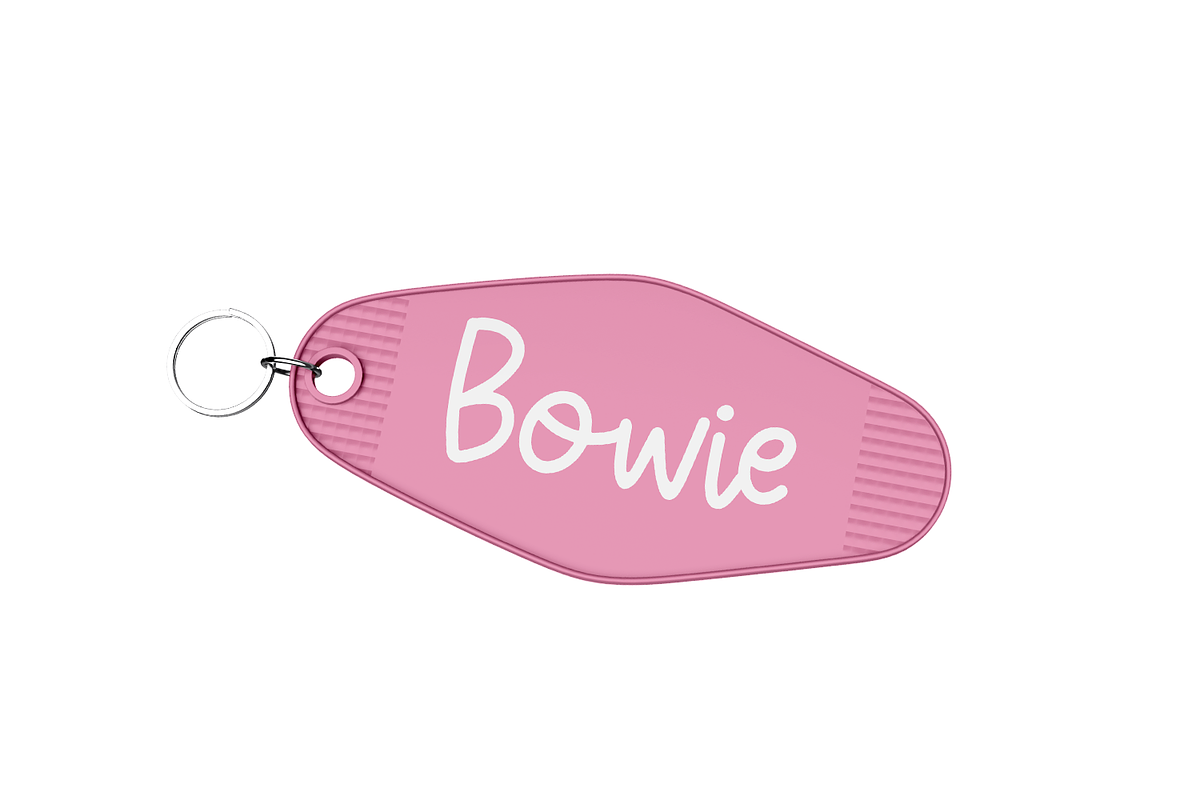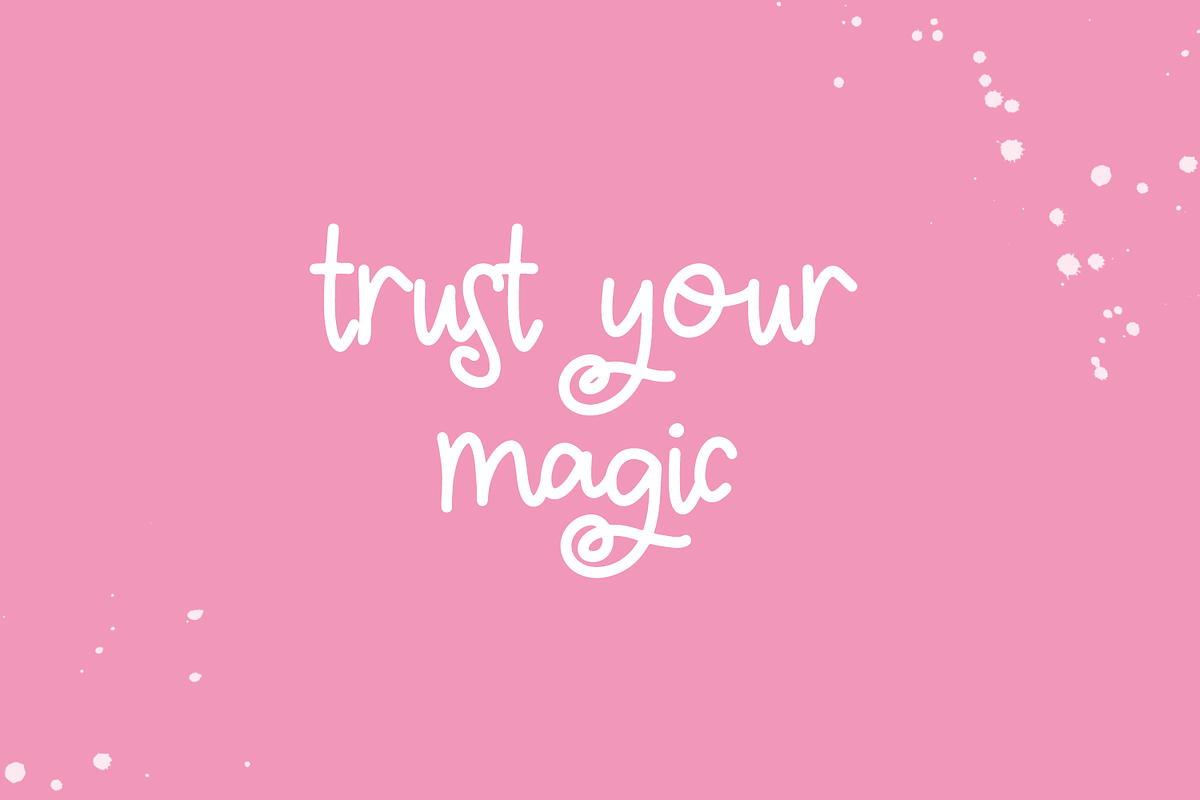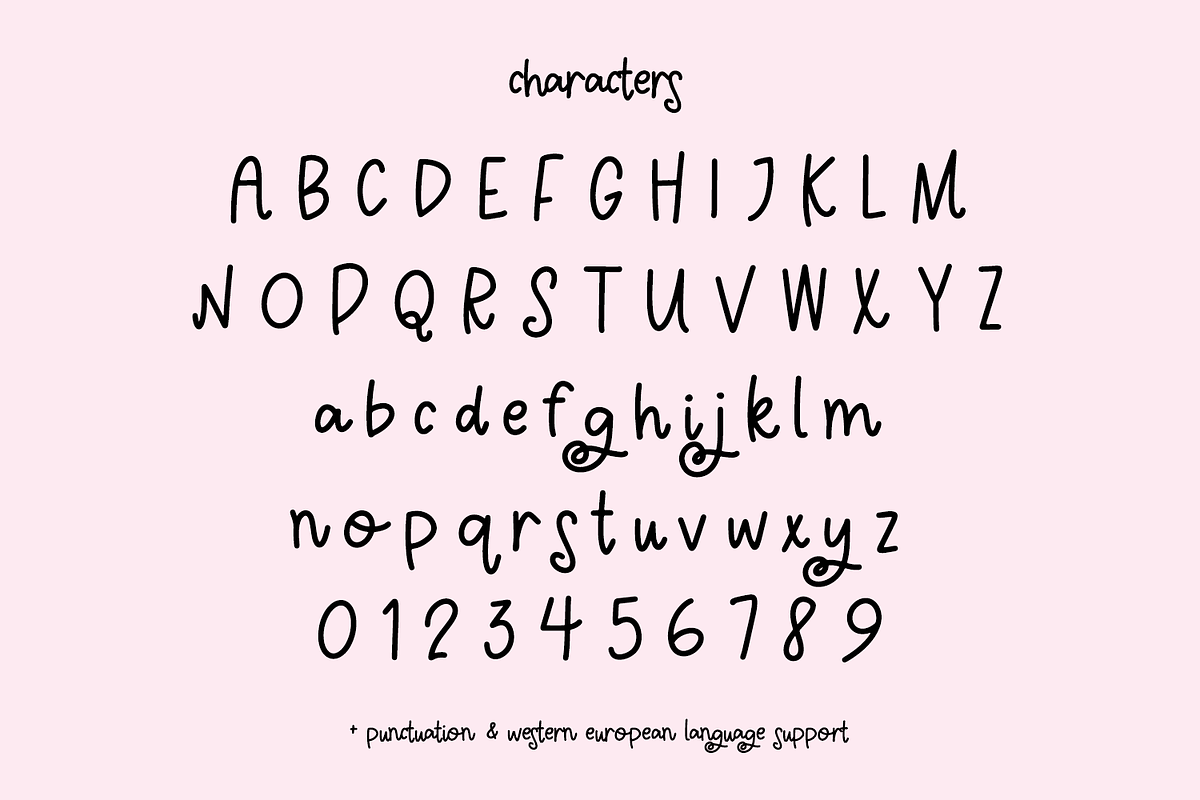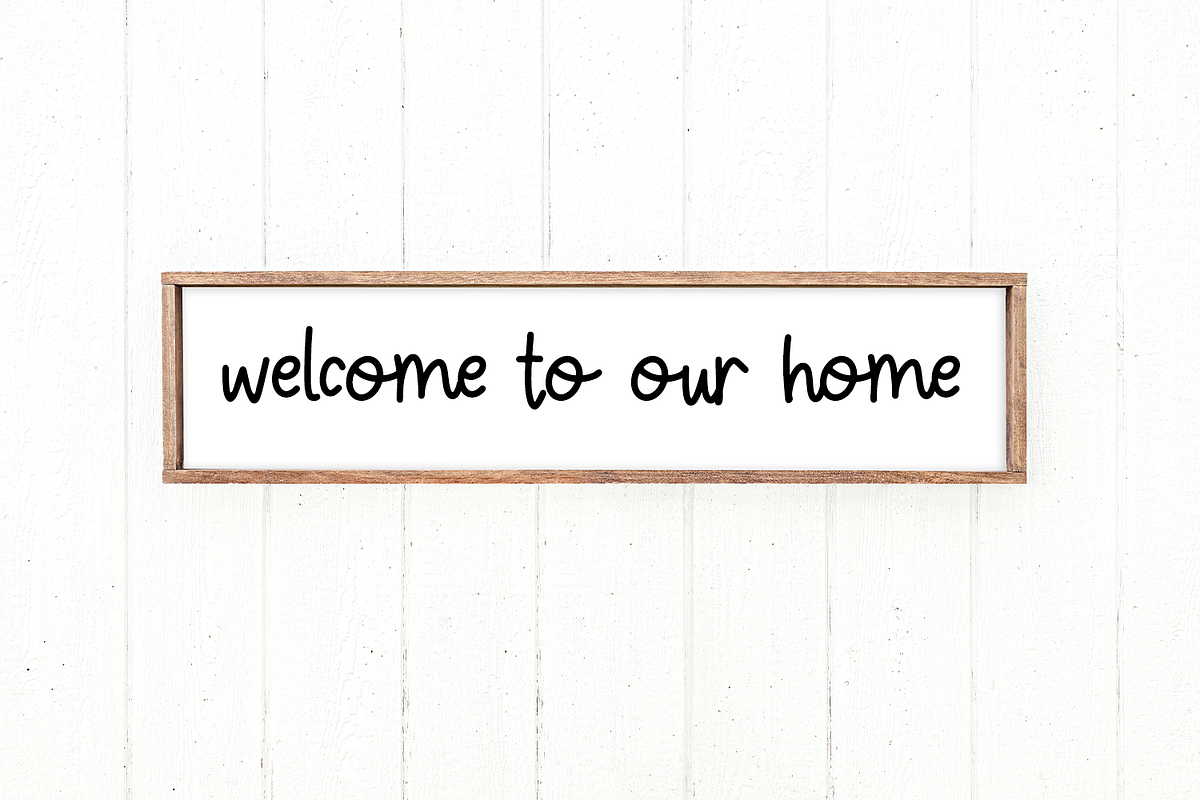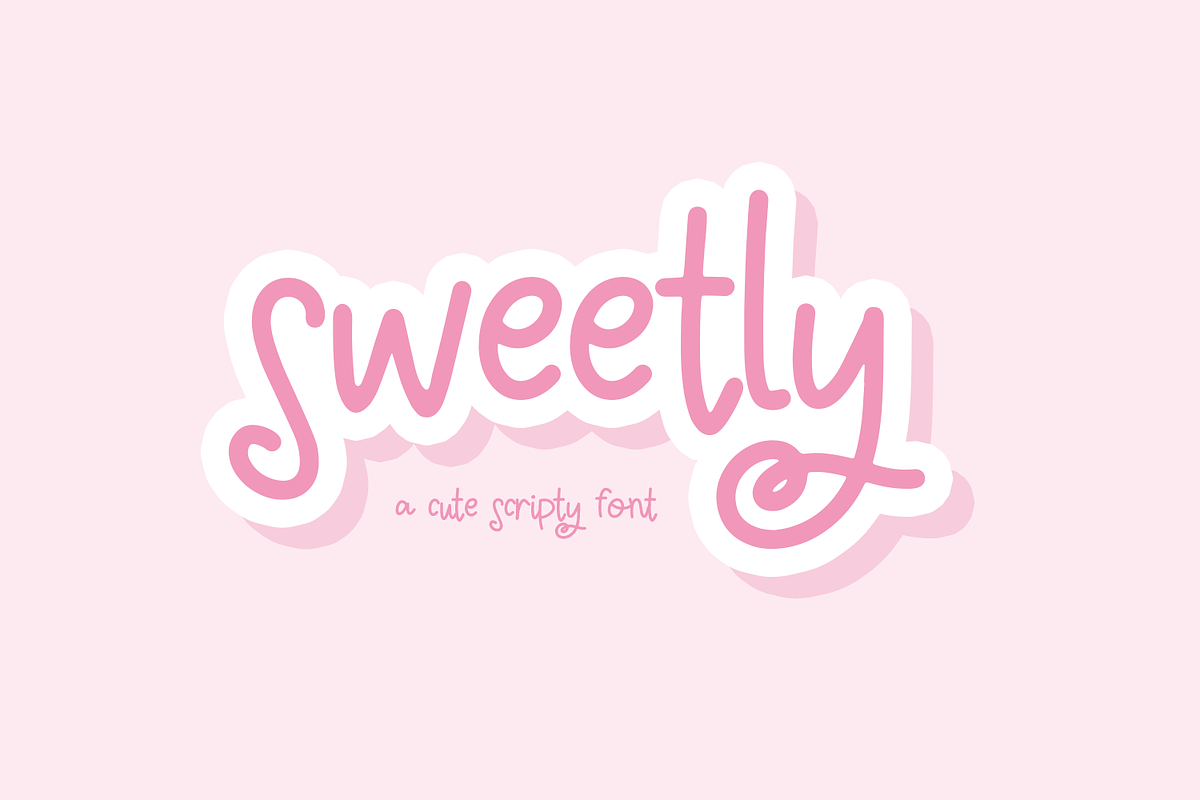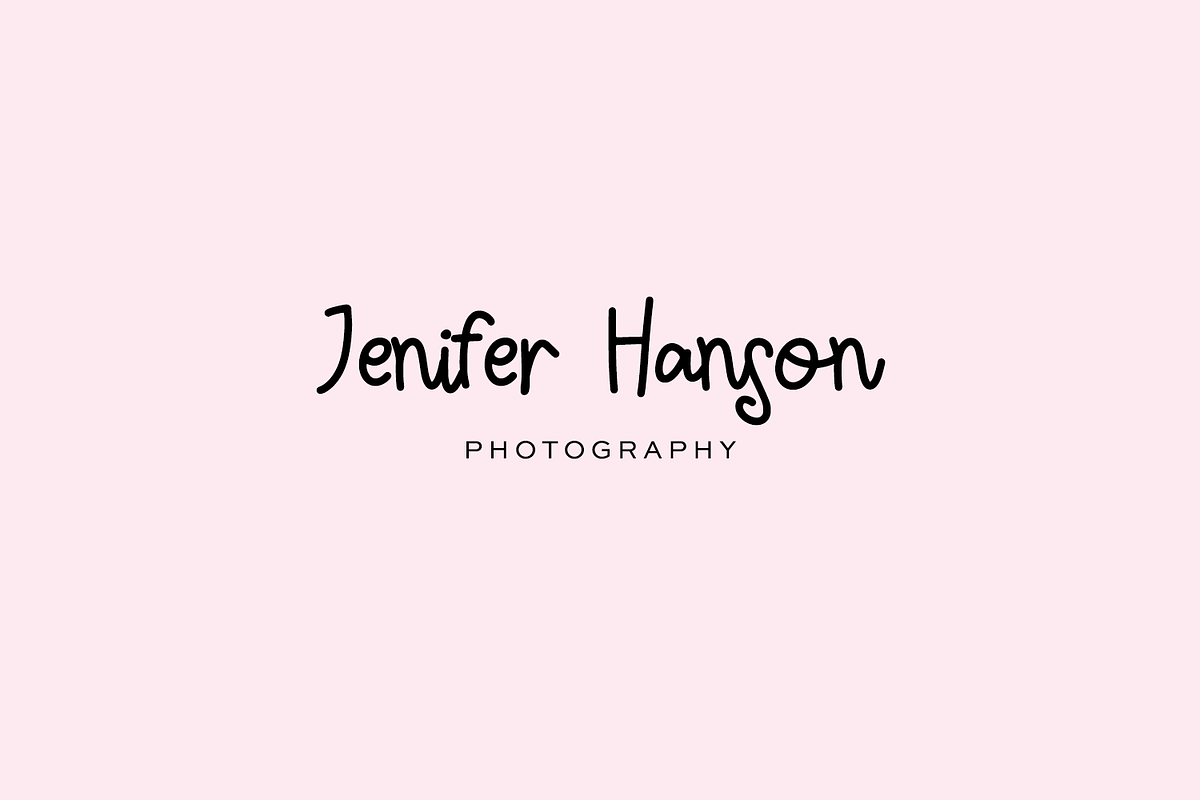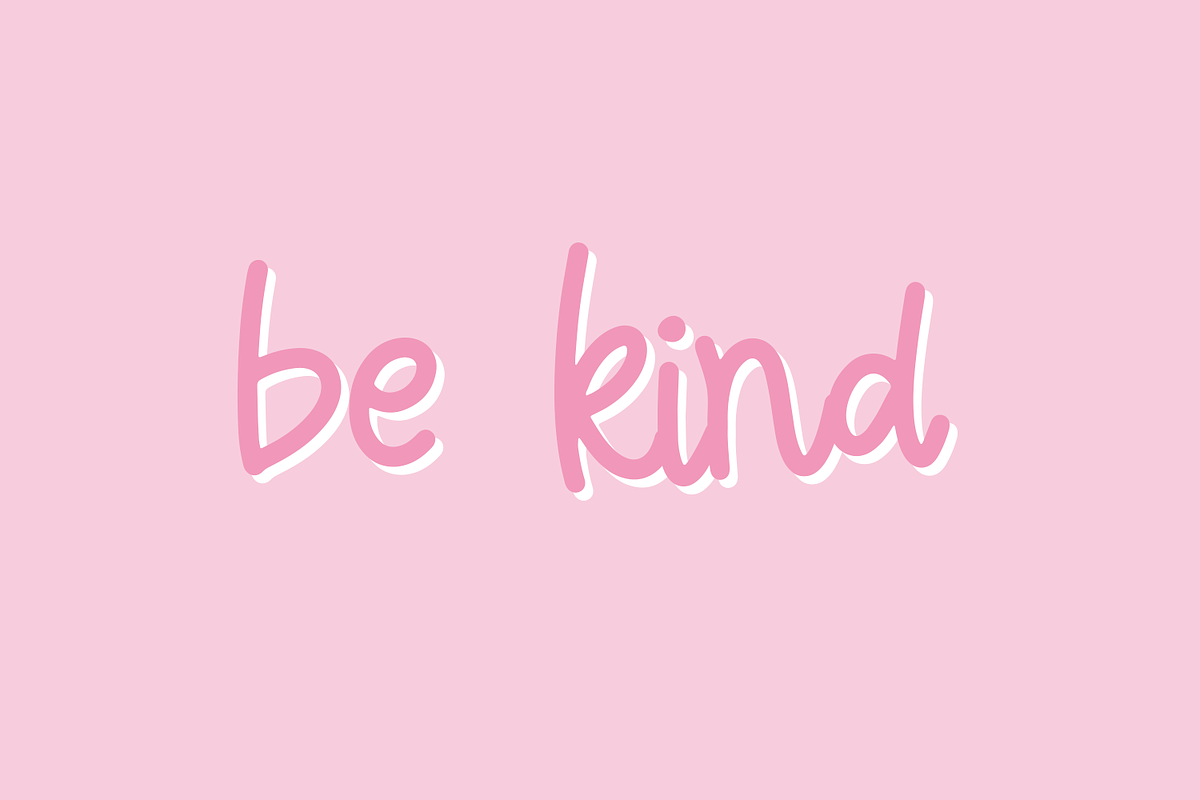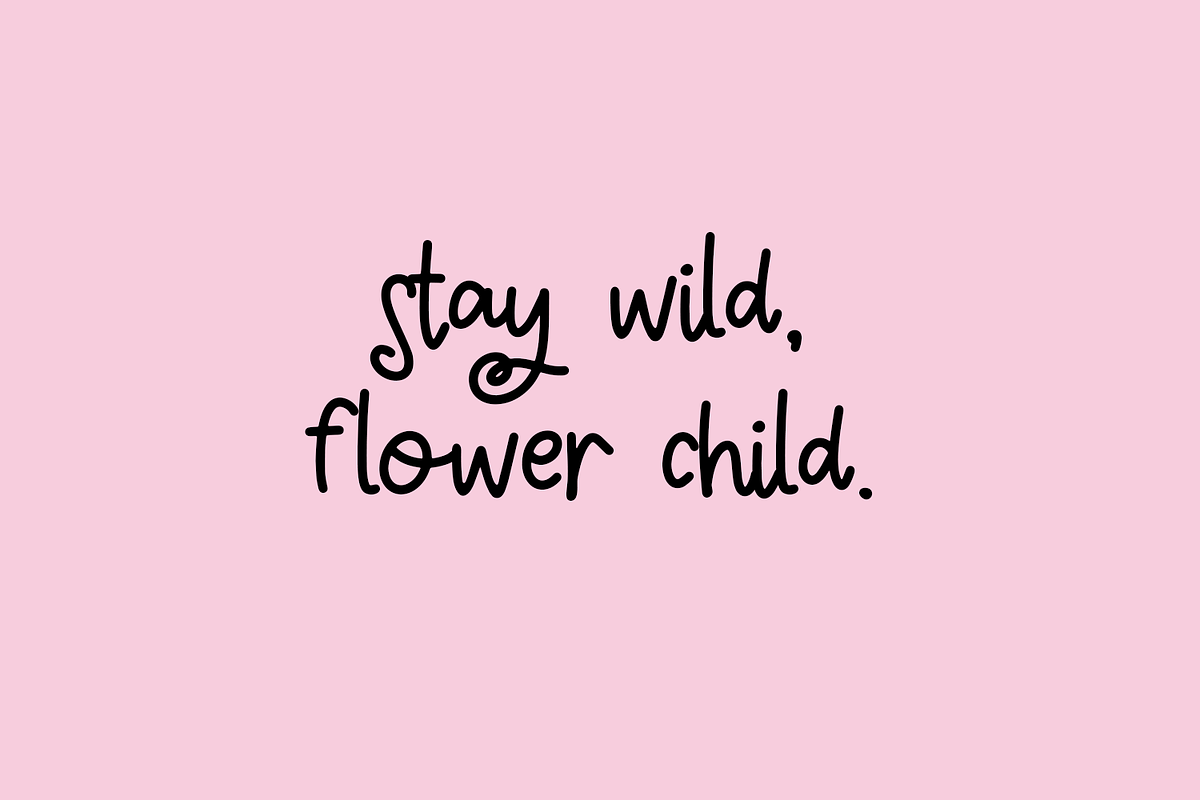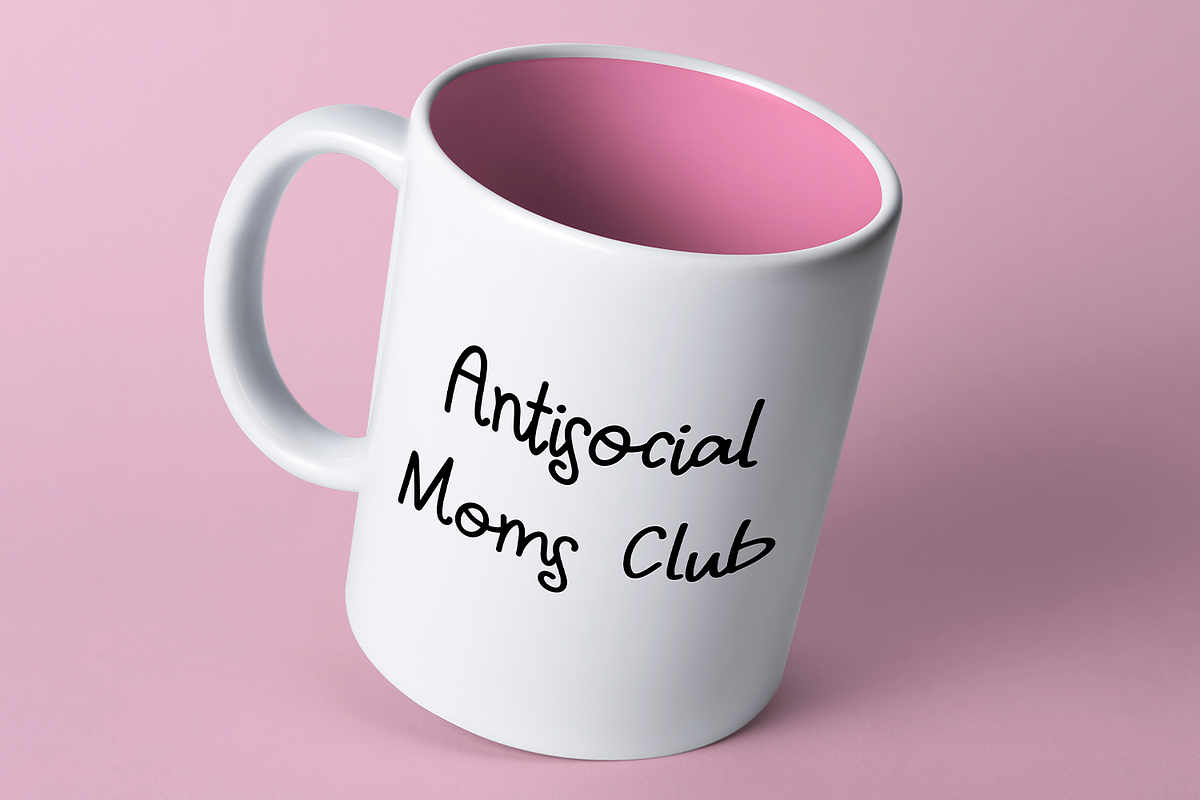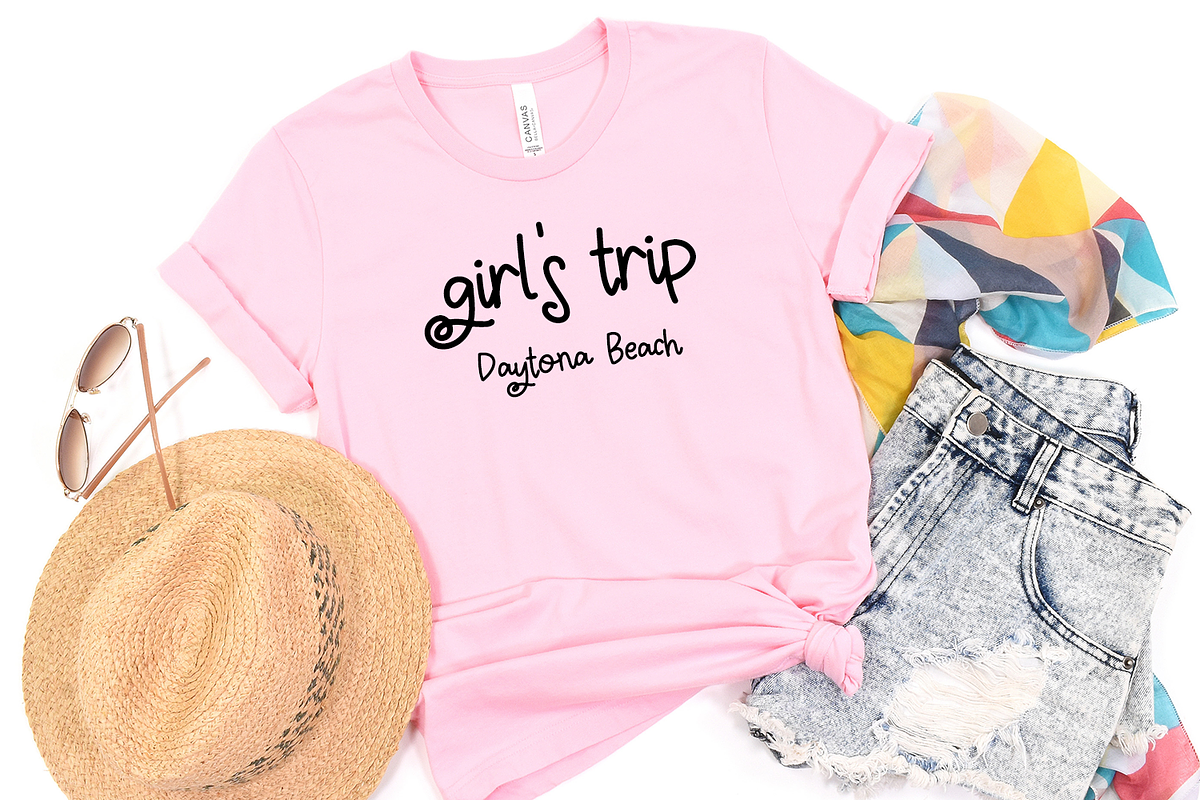
Sweetly Script
Sweetly Script is an adorable handwriting font. Itโs cute and legible, making it the perfect fit for SVG designs, logo designs, crafting projects, cards, tags, social media graphics, marketing, & more.
Sweetly Script includes:
- upper + lowercase characters A-Z and a-z
- numbers 0-9
- punctuation
- Western European Language Support